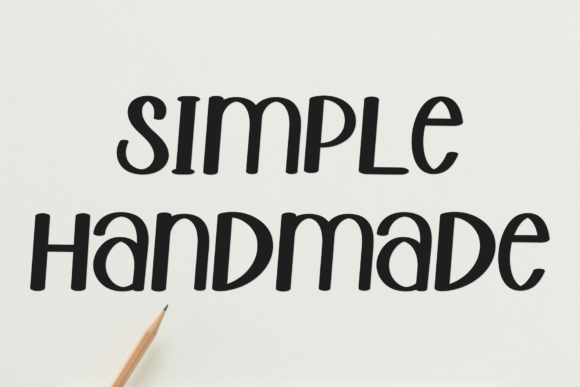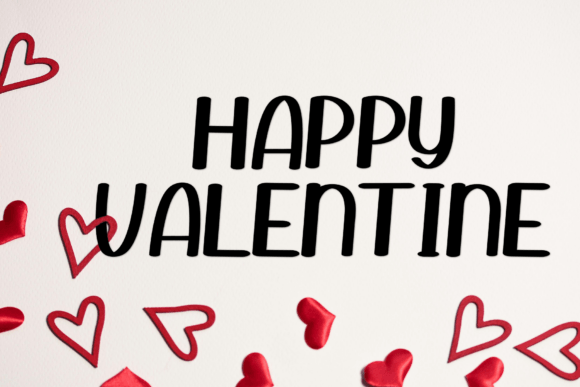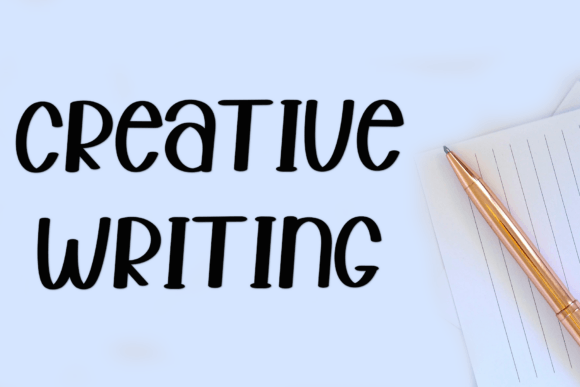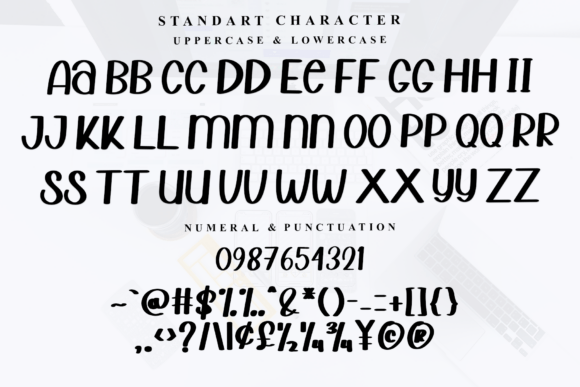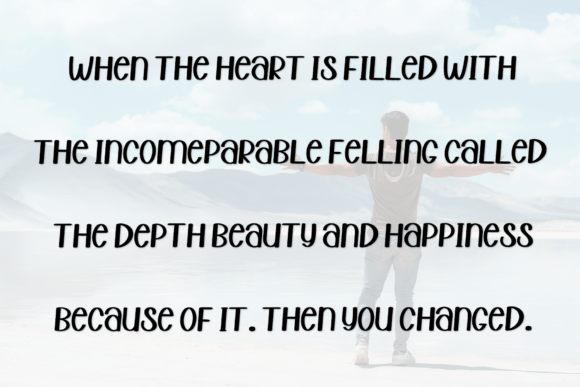
Introduction to Simple Dreamer Font
Simple Dreamer is a beautifully handcrafted display piece designed to inspire and uplift.
It features a charming design that brings a sense of peace and creativity to any space Perfect for your home or office, this unique display serves as a gentle reminder to follow your dreams and embrace your imagination.